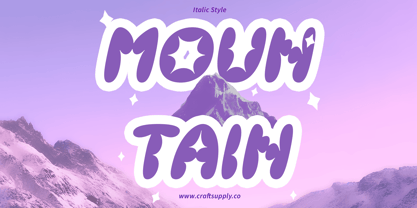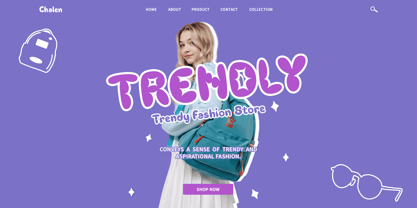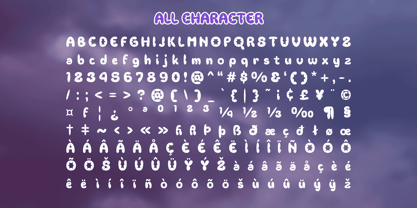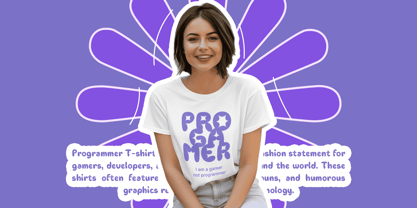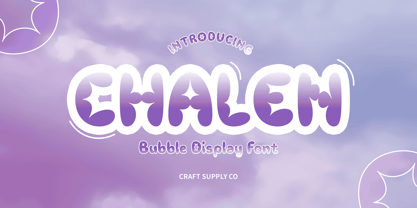
Chalen
by Craft Supply Co
The Chalen Font Family was designed by Trio Nazzar Saputra, Wahyu Hadi Yuana and published by Craft Supply Co. Chalen contains 2 styles and family package options. More about this family
Chalen: Fun and Playful Bubble Font Bubble-Inspired Design Chalen features a delightful bubble-inspired display design that brings a sense of joy and whimsy to any project. Each letter is crafted with rounded edges, resembling the playful shapes of bubbles, adding a charming touch to your designs. Fun and Childish Vibes With its playful appearance and childish vibes, This font injects a sense of fun and lightheartedness into your designs. Whether you’re creating birthday cards, party invitations, or playful signage, this font will instantly convey a cheerful and carefree atmosphere. Versatile Application This font is incredibly versatile, suitable for a wide range of applications including children’s books, posters, invitations, and more. Its legibility and distinctiveness make it perfect for both headlines and body text, allowing you to maintain consistency throughout your design. Eye-Catching and Memorable The bubbly nature of Chalen makes it eye-catching and memorable, ensuring that your designs stand out from the crowd. Whether used as a primary focal point or as a complementary element, This font adds a touch of whimsy and charm that captivates audiences of all ages. Spreading Joy with its Bubble-Inspired Charm This font is a delightful font that exudes fun and playfulness with its bubbly design. Perfect for projects aimed at children or anyone who appreciates a touch of whimsy, Chalen adds a sense of joy and lightheartedness to any design, making it a must-have for your font collection.
Designers: Trio Nazzar Saputra, Wahyu Hadi Yuana
Foundry: Craft Supply Co